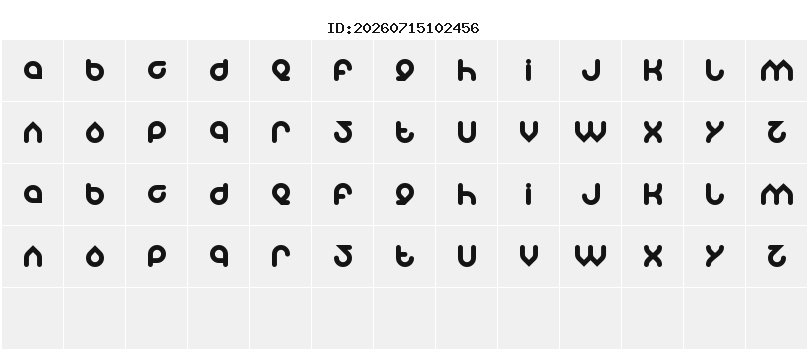
znowwhite Preview
• Font Name: znowwhite
• Font ID: znowwhite:Version 1.00
• Full Font Name: znowwhite
• Version: Version 1.00 February 22, 2011, initial release
• PostScript Name: znowwhite
About znowwhite.ttf
znowwhite.ttf is a modern, elegant sans-serif font designed for ultimate readability and visual harmony. Perfect for branding, headlines, web design, and print materials.